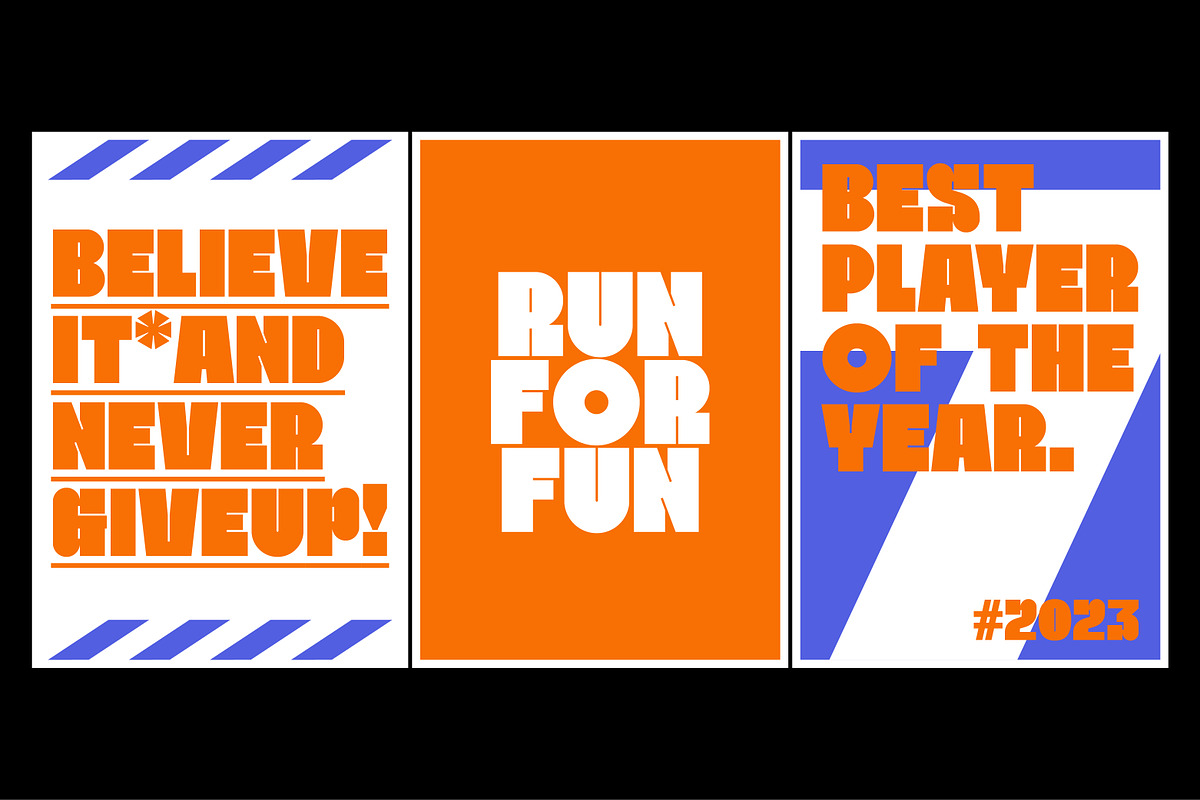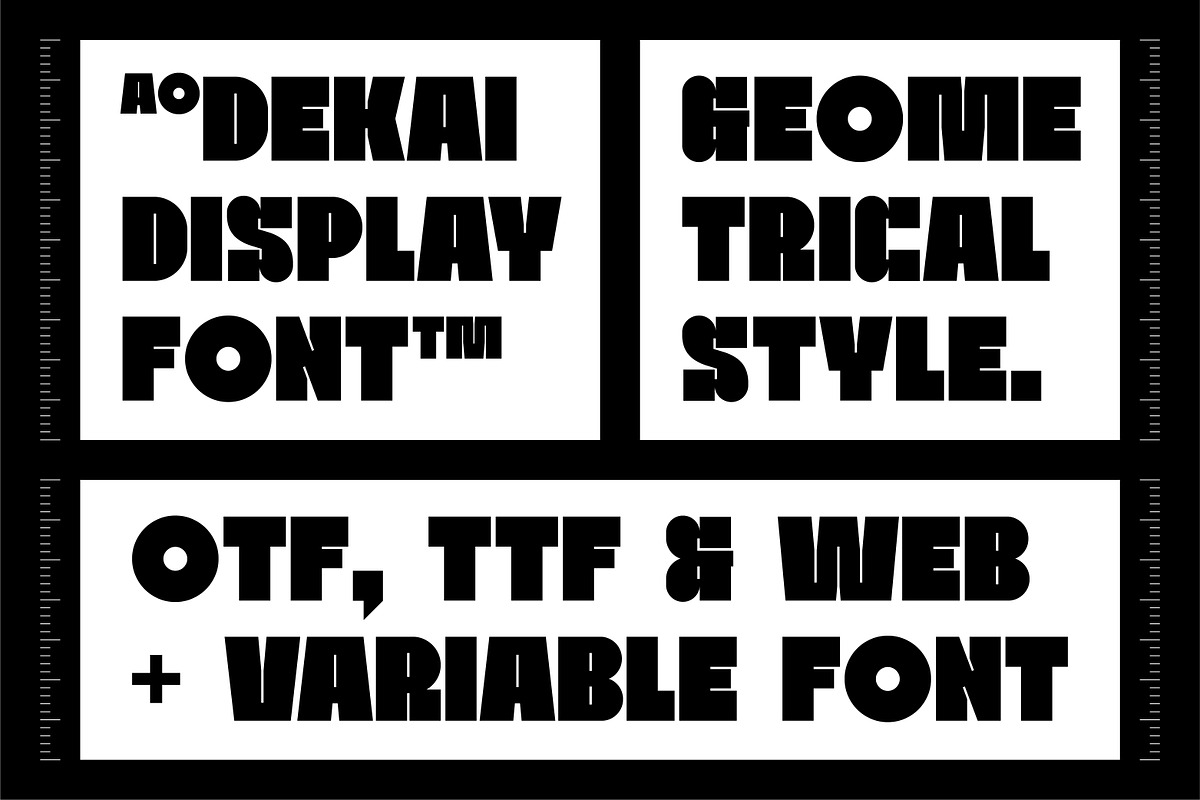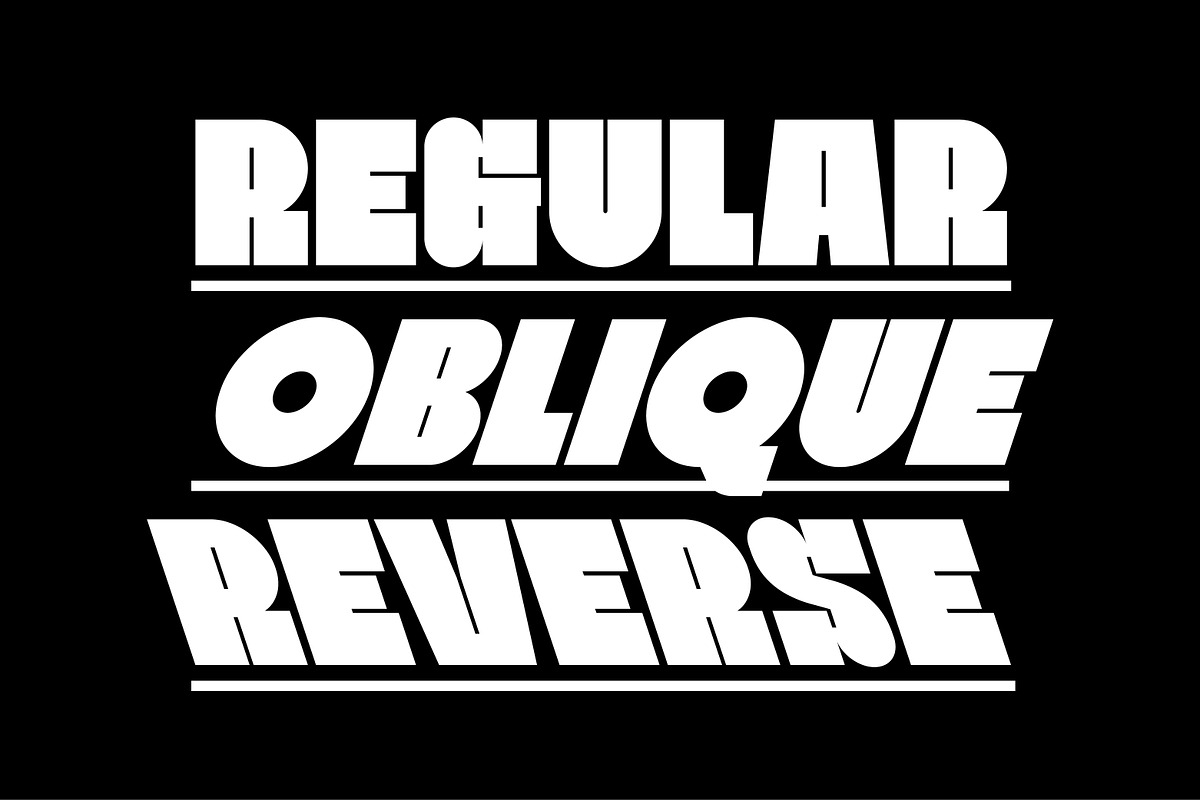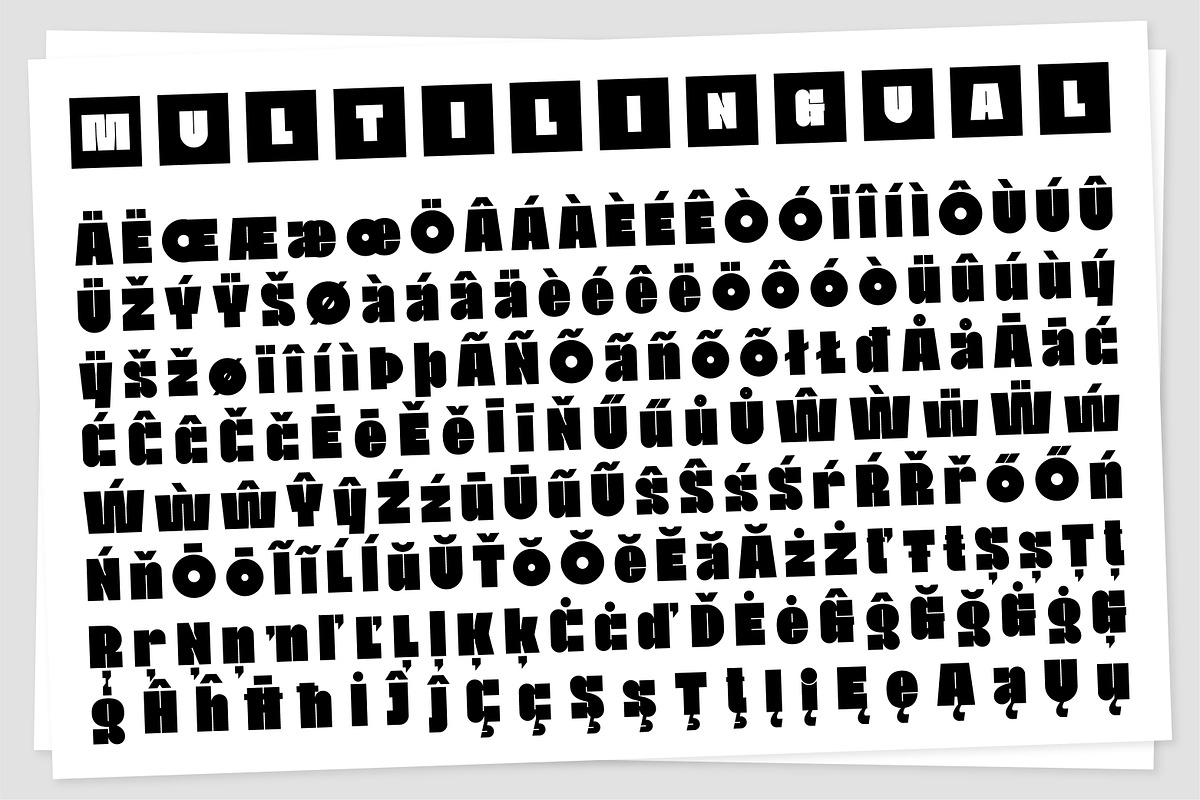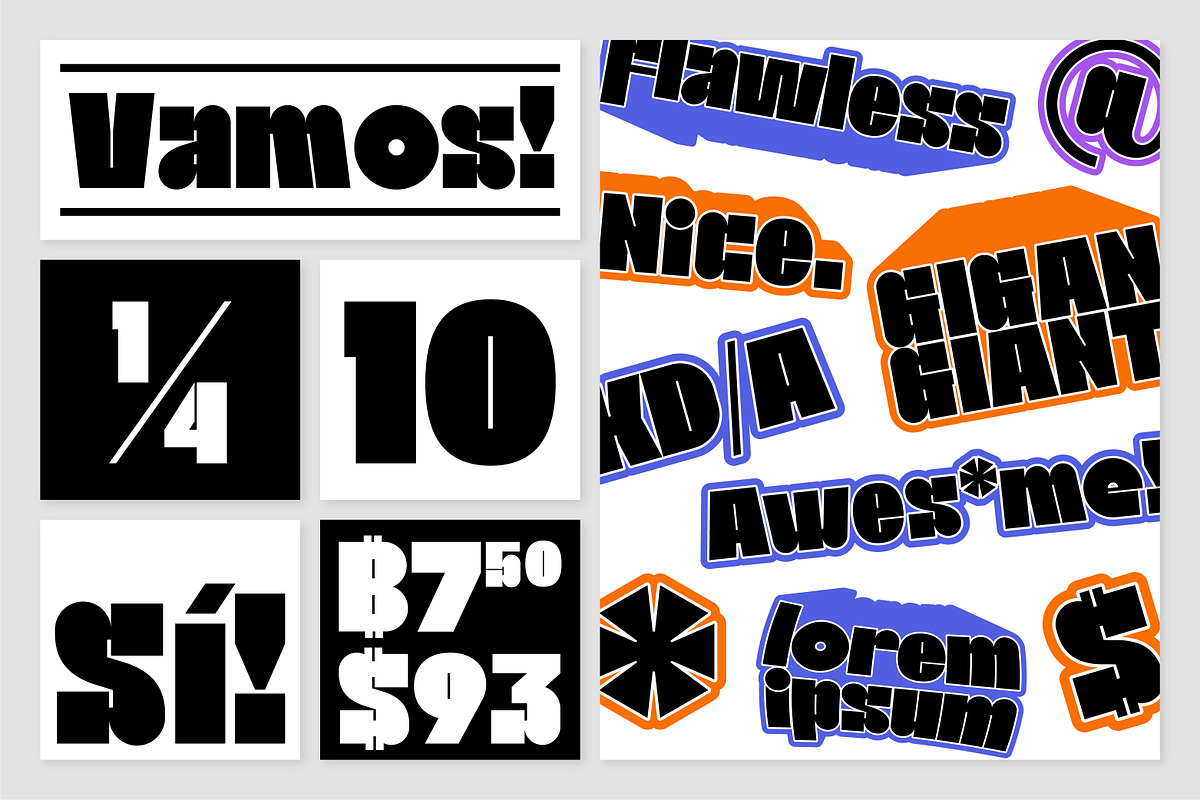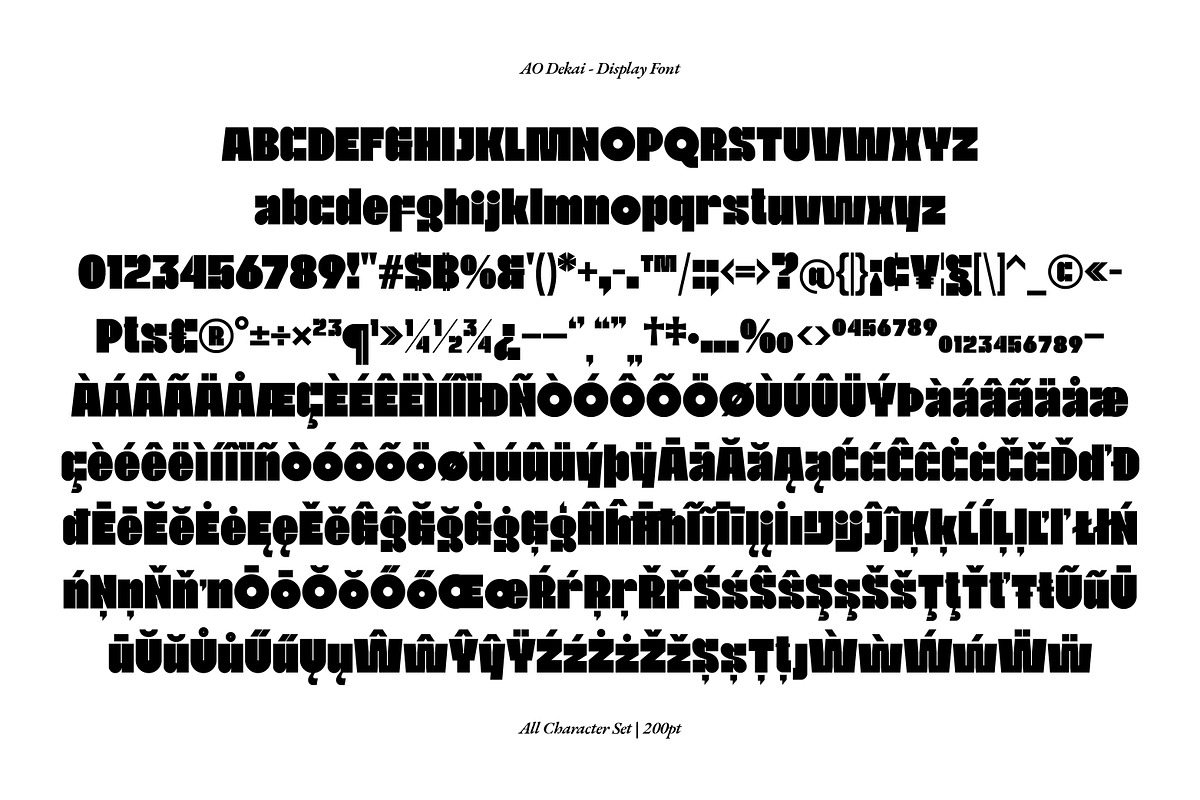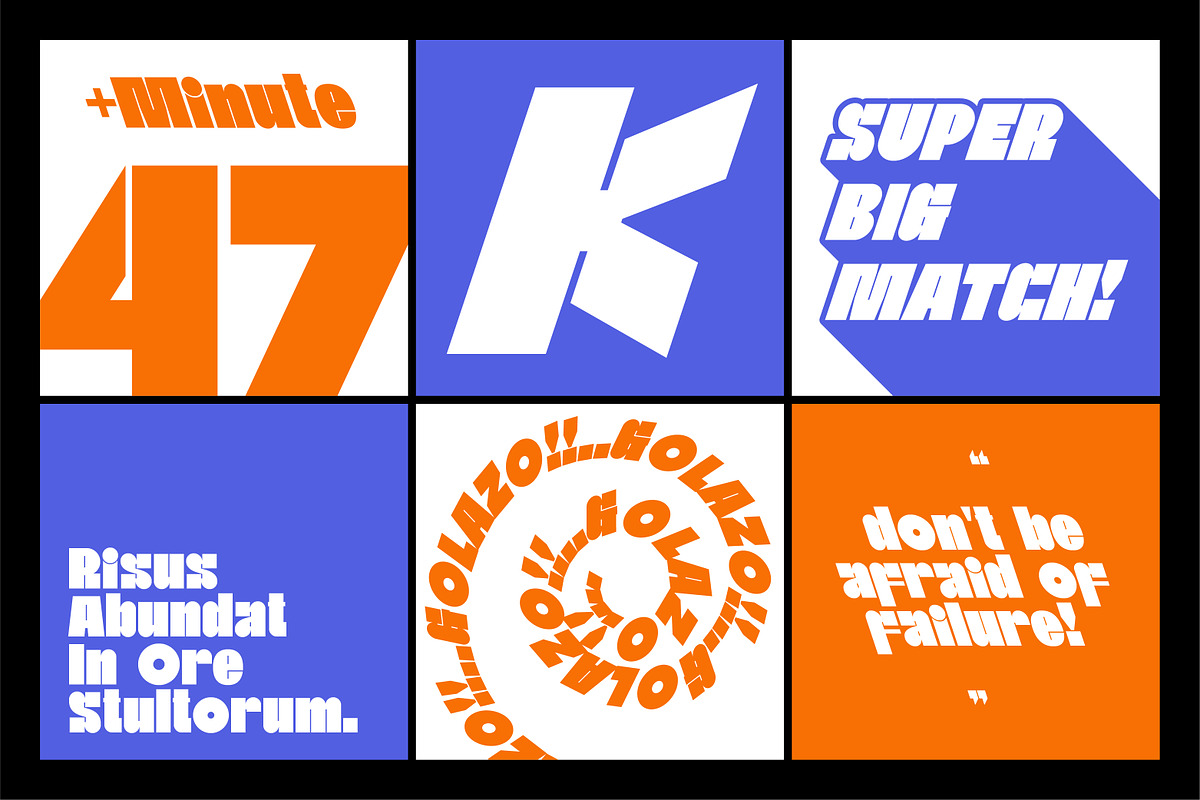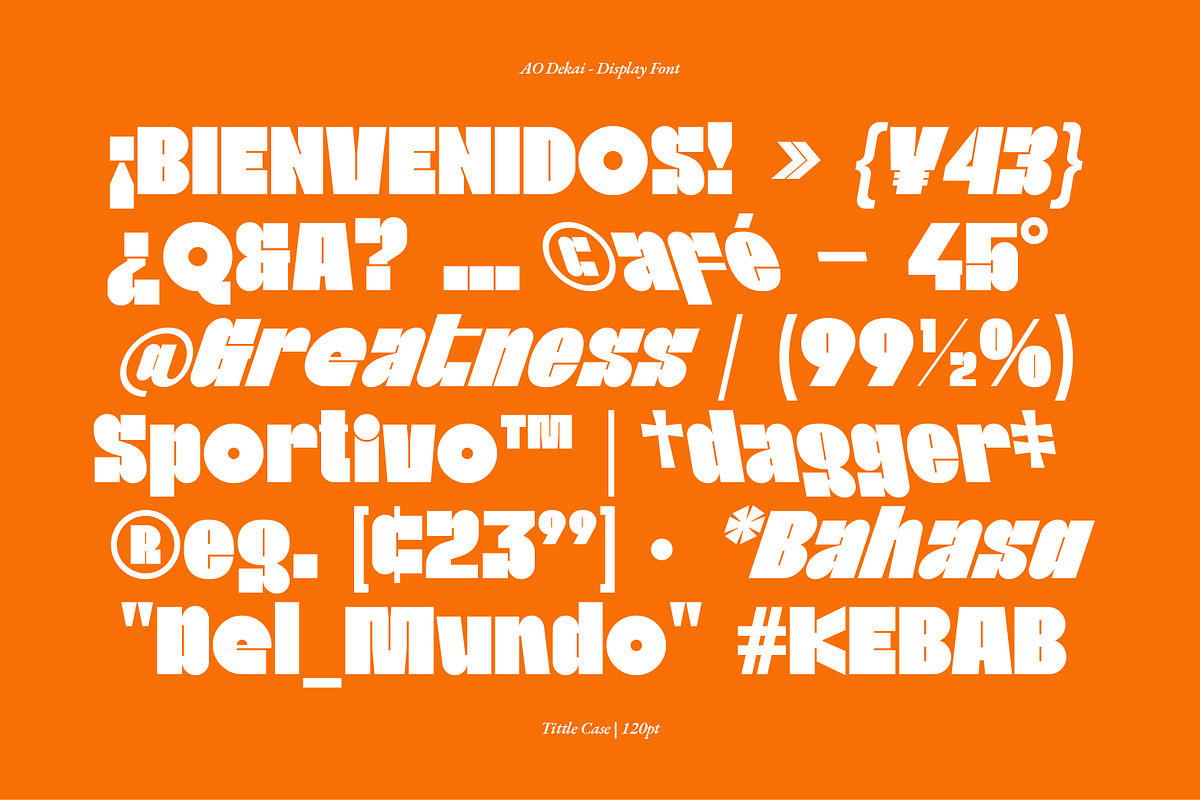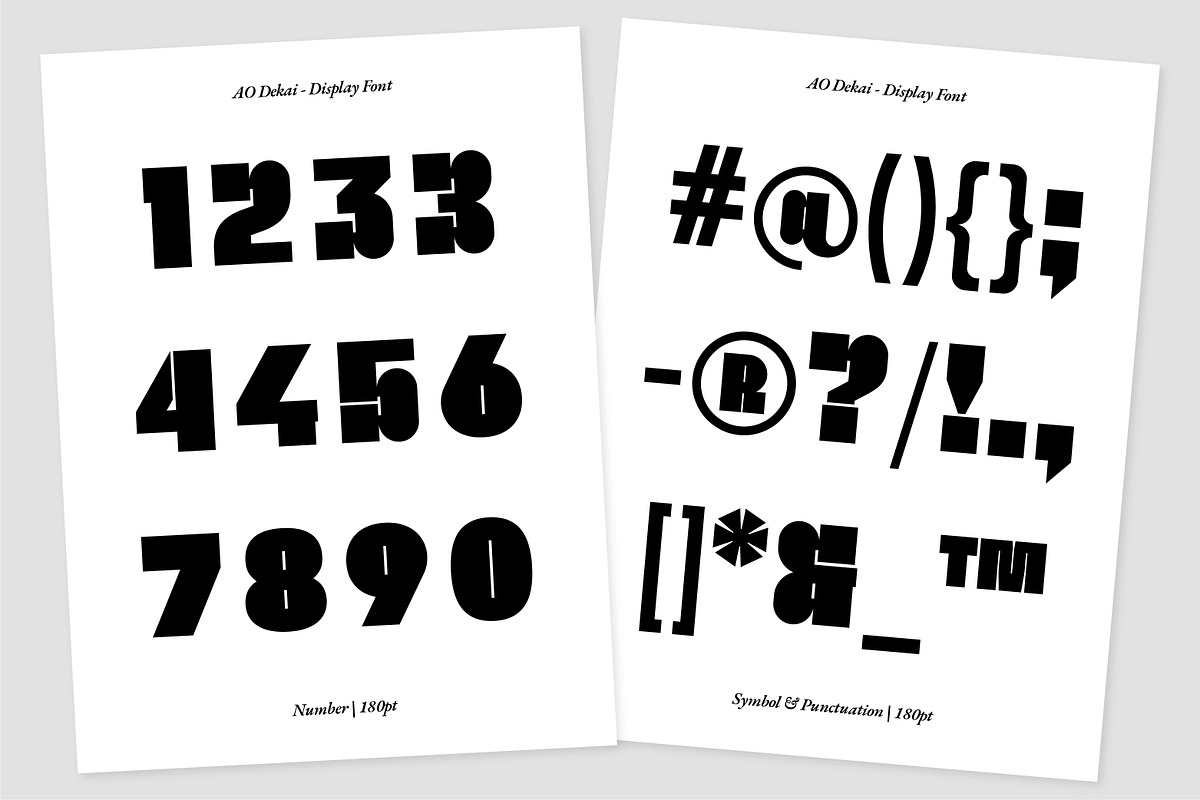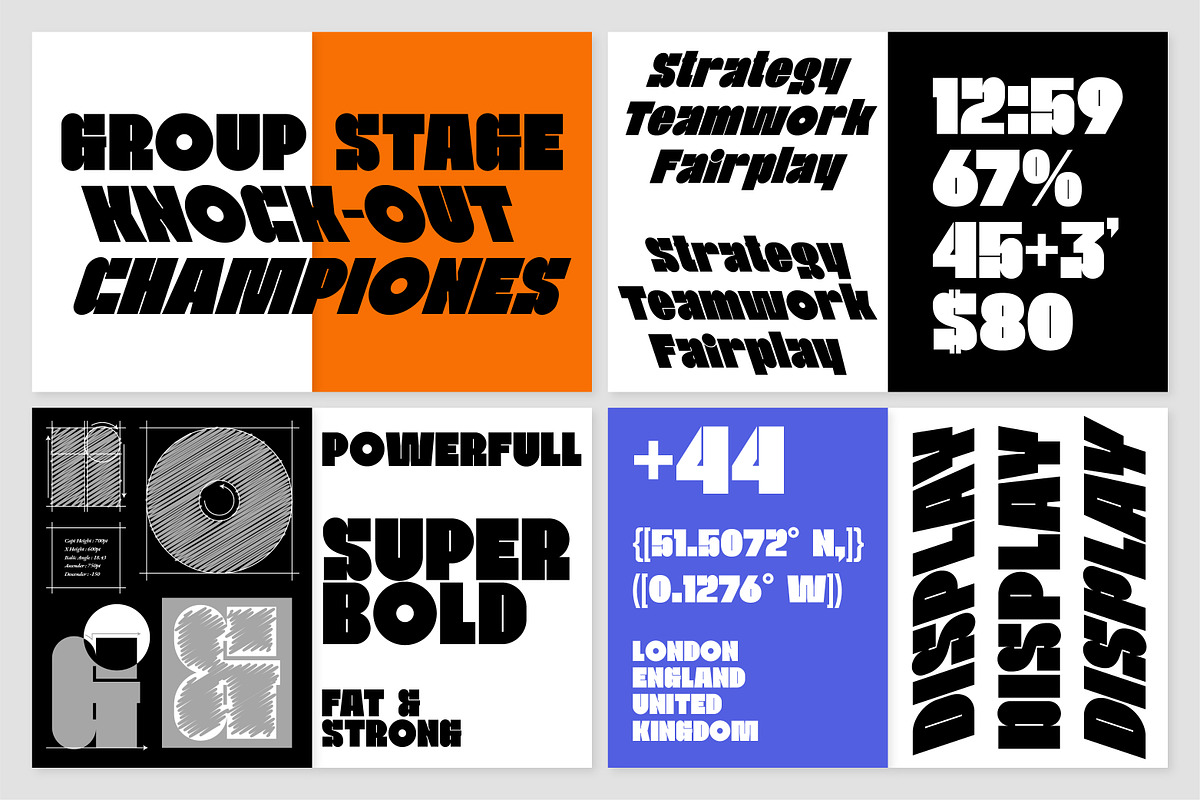
AO Dekai - Display Variable Font
Dekai is a super bold & strong display variable font, beautifully crafted with a very geometric style. Inspired by the style of design that is currently popular. Dekai font comes with three styles (Reverse, Regular, & Oblique) its works very well in combination or separately to show up your next projects.